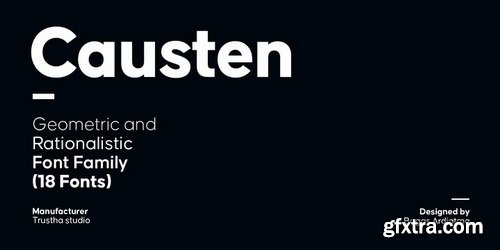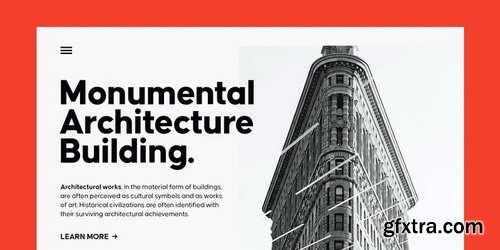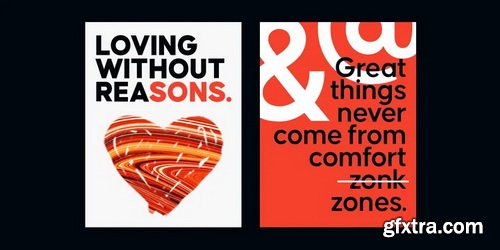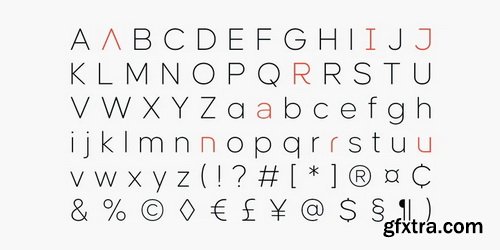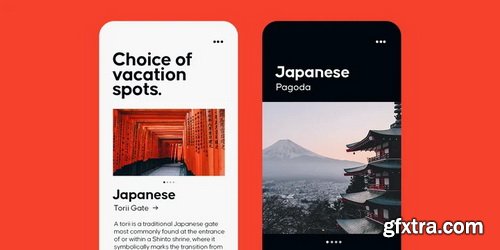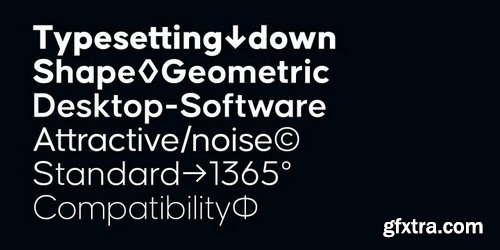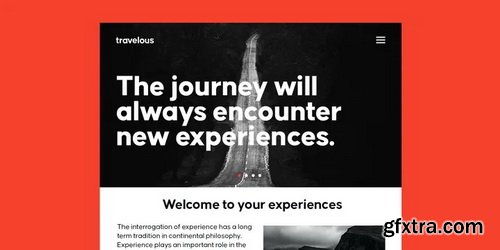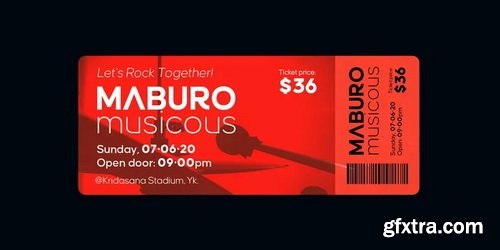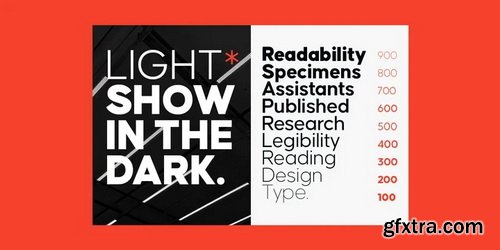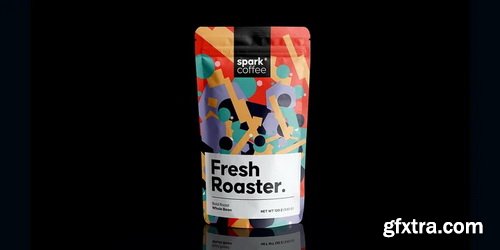
Causten Font Family
Causten is a geometric sans serif font family with maintains rationality in designing each form. With use the sharpness of the eyes, and remain logical, so that balance is maintained in each form. So, it will get a clean, neat, and perfect shape.